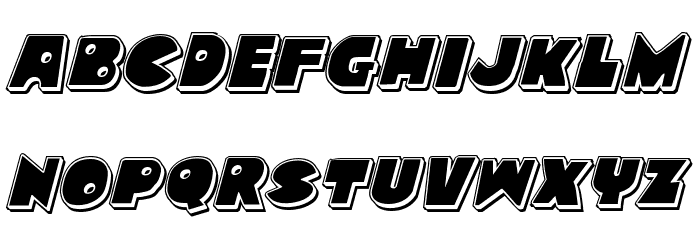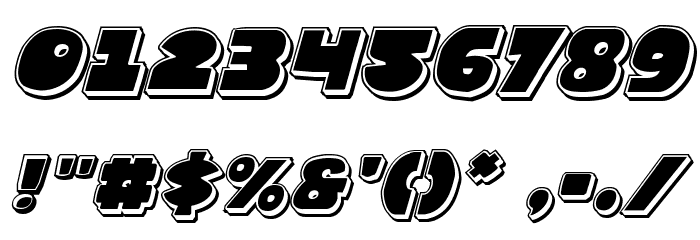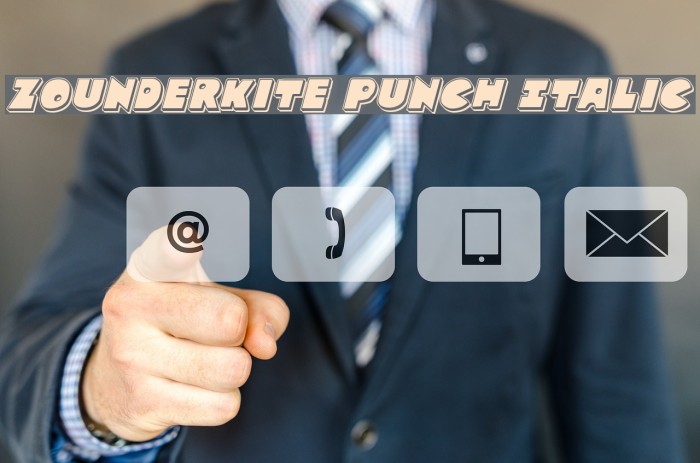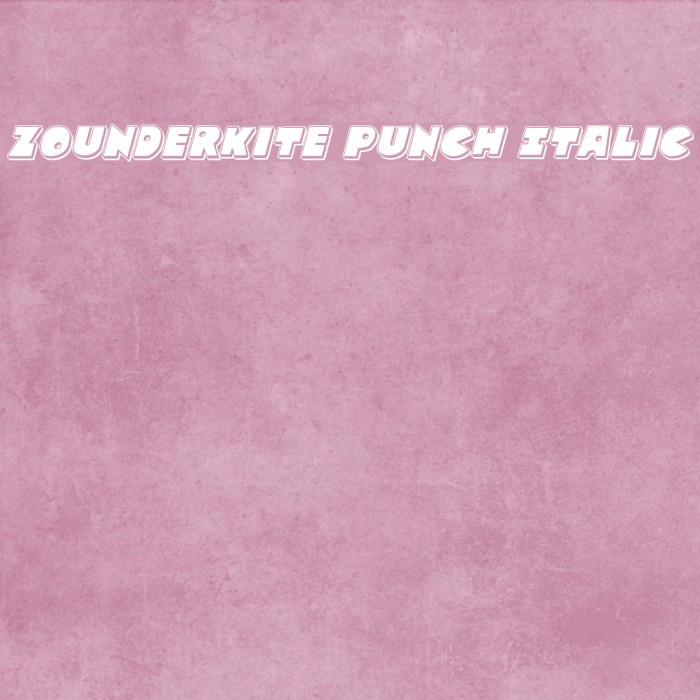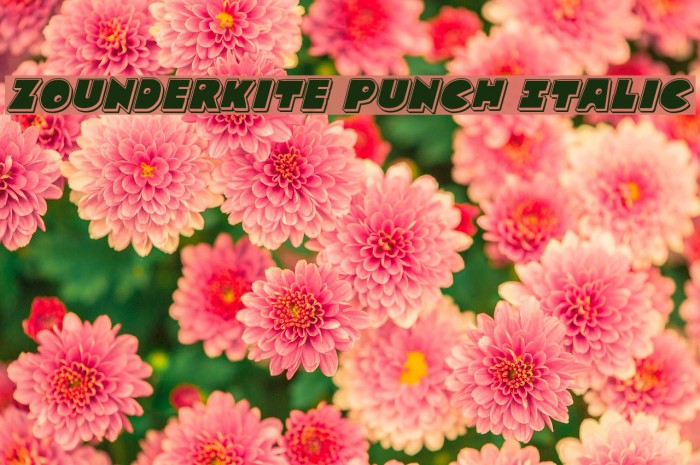
Zounderkite Punch Italic Font
This font features a bold, dynamic style with a strong presence. Each character is outlined, creating a striking contrast between the solid interior and the bold outline. The letters are slightly italicized, adding a sense of movement and energy. The design is playful yet assertive, making it ideal for attention-grabbing headlines or logos. The numbers and special characters maintain the same bold and outlined style, ensuring consistency across all glyphs. The overall appearance is modern and impactful, suitable for projects that require a strong visual statement.
A bold, outlined, and slightly italicized font with a dynamic and modern style.
- Proposed Projects: Ideal for branding, advertising, posters, and any project needing a bold, eye-catching typeface.